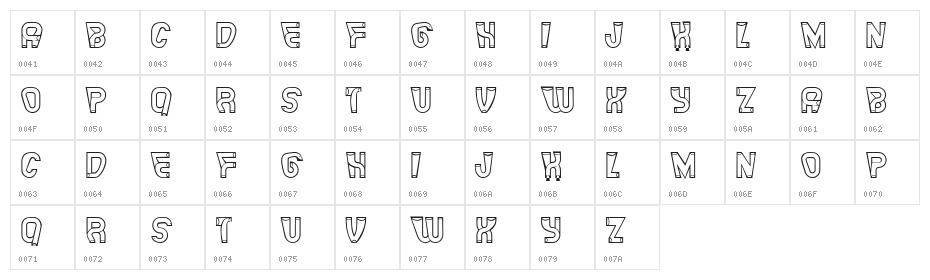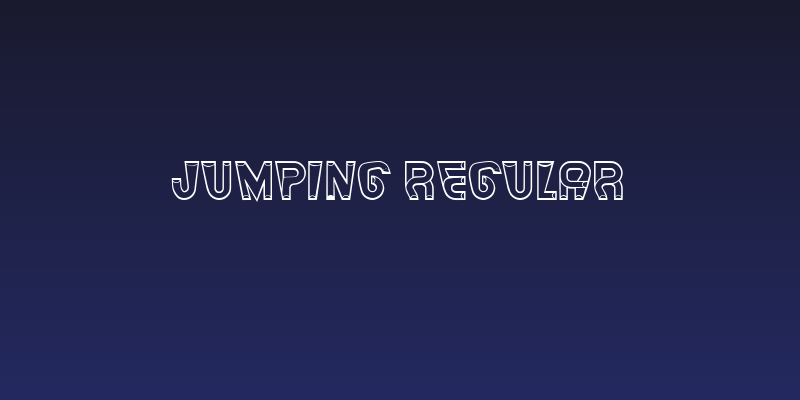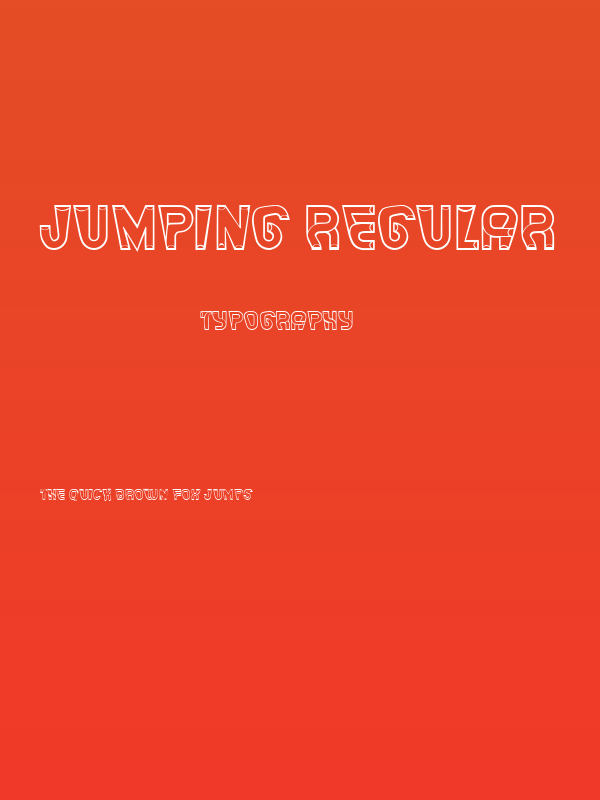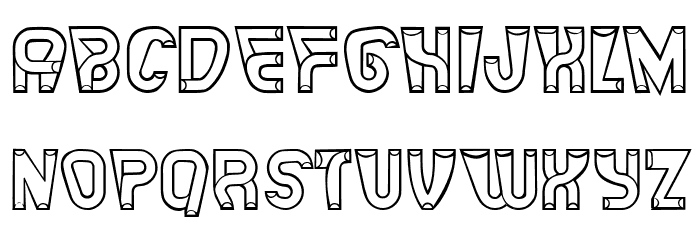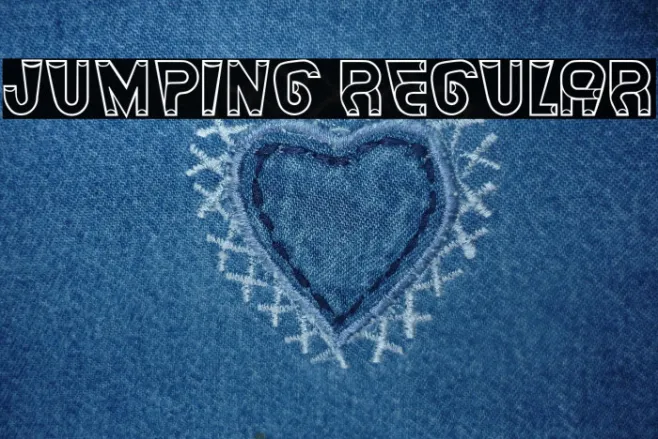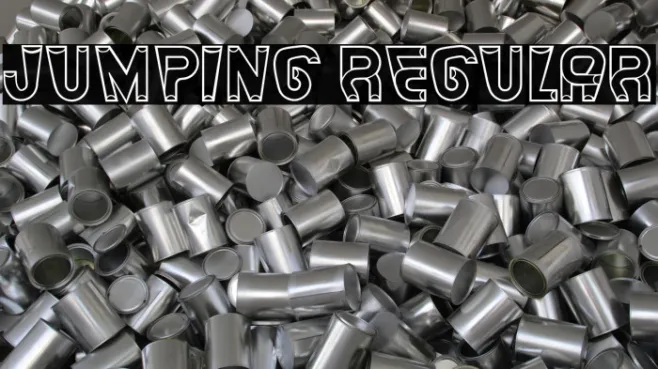
Jumping Regular Font
Jumping Regular Description
This font features a playful and dynamic design with a bold outline that gives each letter a three-dimensional appearance. The characters are uppercase only, with a unique, geometric style that incorporates both straight and curved lines. The hollow interior of each letter adds to its eye-catching and modern aesthetic. This font is ideal for creating a sense of movement and energy, making it perfect for projects that require a lively and engaging typeface.
| Proposed Projects | Ideal for posters, event flyers, children's book covers, and any design requiring a fun and energetic typeface. |